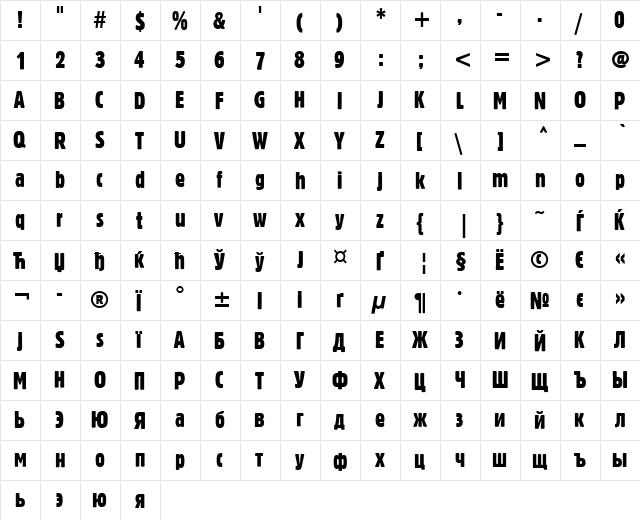
BlocExtCondC Regular
| Foundry | ParaType, Inc |
Design Context for BlocExtCondC Typeface
BlocExtCondC takes a measured approach to typography — its balanced proportions and neutral character make it a reliable workhorse for both digital and print work. The condensed width makes it efficient for tight spaces without sacrificing legibility.